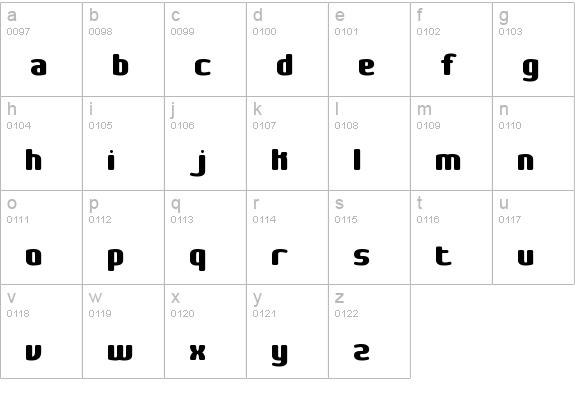
Galapogos BRK Font Details
Galapogos BRK is a modern and stylish font that exudes sophistication and elegance. With its sleek lines and unique design, this font is perfect for a wide range of design projects, from branding to advertising to social media graphics. The clean and sharp letterforms of Galapogos BRK make it easy to read and highly versatile. What sets Galapogos BRK apart is that it is available for free download at FontsMarket.com. This means that you can easily access this beautiful font and use it in your projects without any cost. Whether you're a designer looking to add a touch of class to your work or a business owner seeking a professional look for your brand, Galapogos BRK is the perfect choice. Download it today and elevate your designs with this stunning and free font.